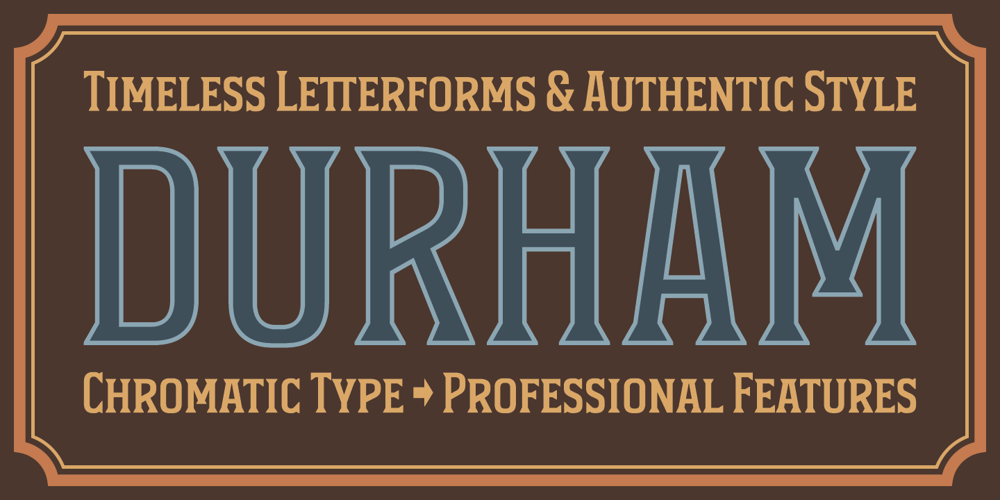
Durham Latin Font Family was designed by Joshua Mayfield and published by Mayfield Type Foundry. Durham Latin contains 3 styles and family package options. Durham Latin brings the Latin style from the Industrial Revolution to the modern era. These letterforms could be seen painted on a road sign in France, engraved in a sign over a tavern door in London, or seen on a playbill in America. The rich and varied history of these forms inspired me to capture that personality, and interpret it in a way that fits the wide range of needs of modern designers. Condensed forms and strong serifs imbue Durham Latin with a presence that can’t be ignored yet doesn’t overwhelm. It shines as a powerful display font, and becomes affable when used at smaller sizes for subheadings. Durham thrives in spartan and ornate environments alike. Durham Latin features Outline and Fill variants that allow for more creative display elements. The lowercase are 80% height small caps. Each font contains 448 characters and has full Western European support. Advanced typographic features are built in, including tabular numbers, fractions, arrows, and more.